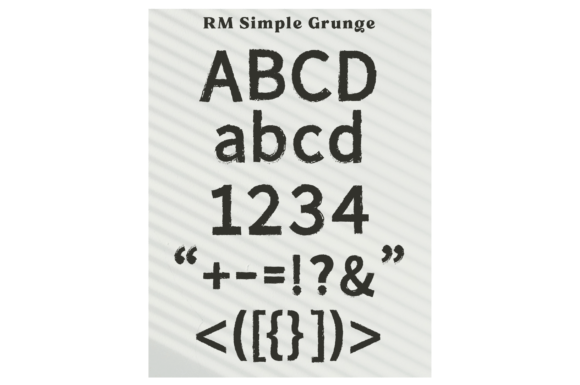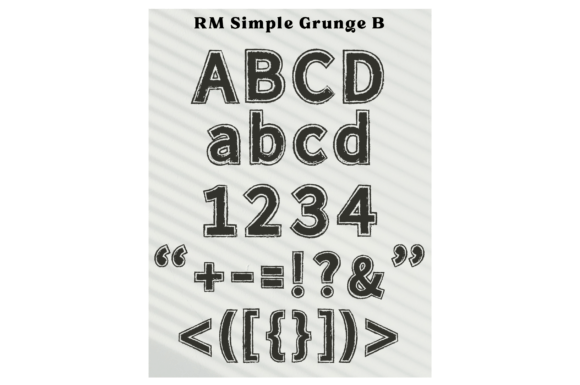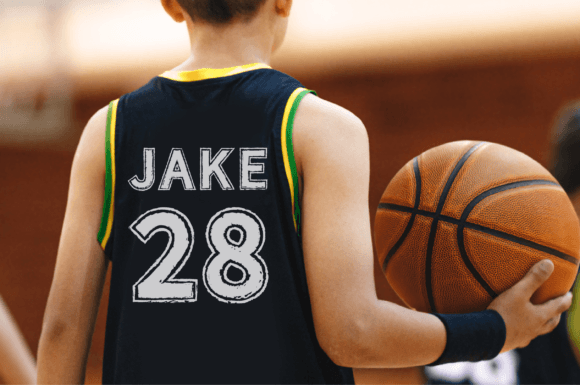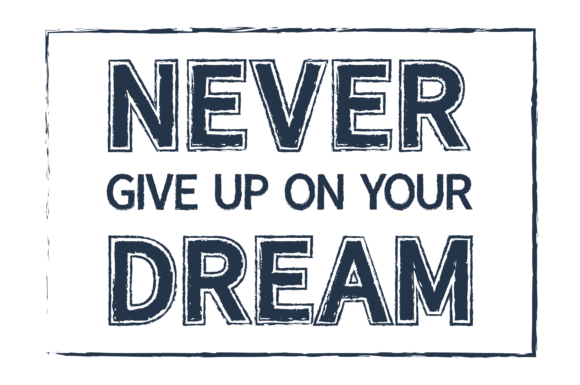
Introduction to Simple Grunge Font
Simple Grunge is sport font in grunge effect.
It includes 2 styles; regular and border Whatever the topic, this font will be a wonderful asset to your font library, as it has the potential to enhance any creation.
Key Features of Simple Grunge Font
Why Choose Simple Grunge Font?
Simple Grunge Font offers exceptional quality and versatility, making it a valuable addition to your design toolkit. Whether you’re creating for personal projects or commercial use, Simple Grunge Font delivers professional results.